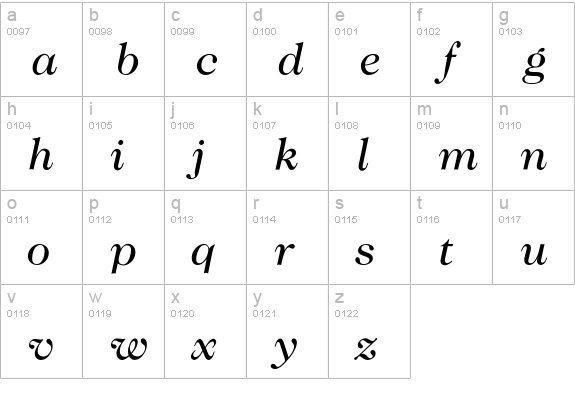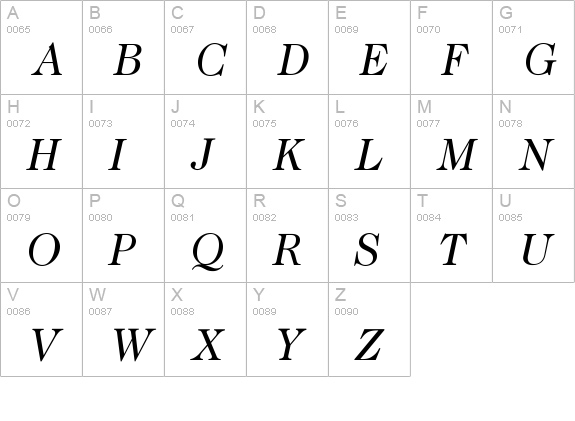
CaslonBookItalic Font Details
CaslonBookItalic is a classic and elegant italic font that exudes sophistication and style. With its slanted design and delicate flourishes, this font is perfect for adding a touch of refinement to any project. Whether you're creating invitations, branding materials, or editorial designs, CaslonBookItalic will elevate your work to the next level. The beauty of CaslonBookItalic lies in its timeless appeal and versatility. Its graceful curves and subtle detailing make it a perfect choice for conveying a sense of tradition and sophistication. Whether you're looking to evoke a sense of history or simply add a touch of elegance to your designs, CaslonBookItalic is the perfect choice. What's even better is that CaslonBookItalic is available for free download at FontsMarket.com. This means you can easily access this stunning font and incorporate it into your projects without any cost. So why wait? Download CaslonBookItalic today and enhance your designs with its timeless beauty and classic charm.